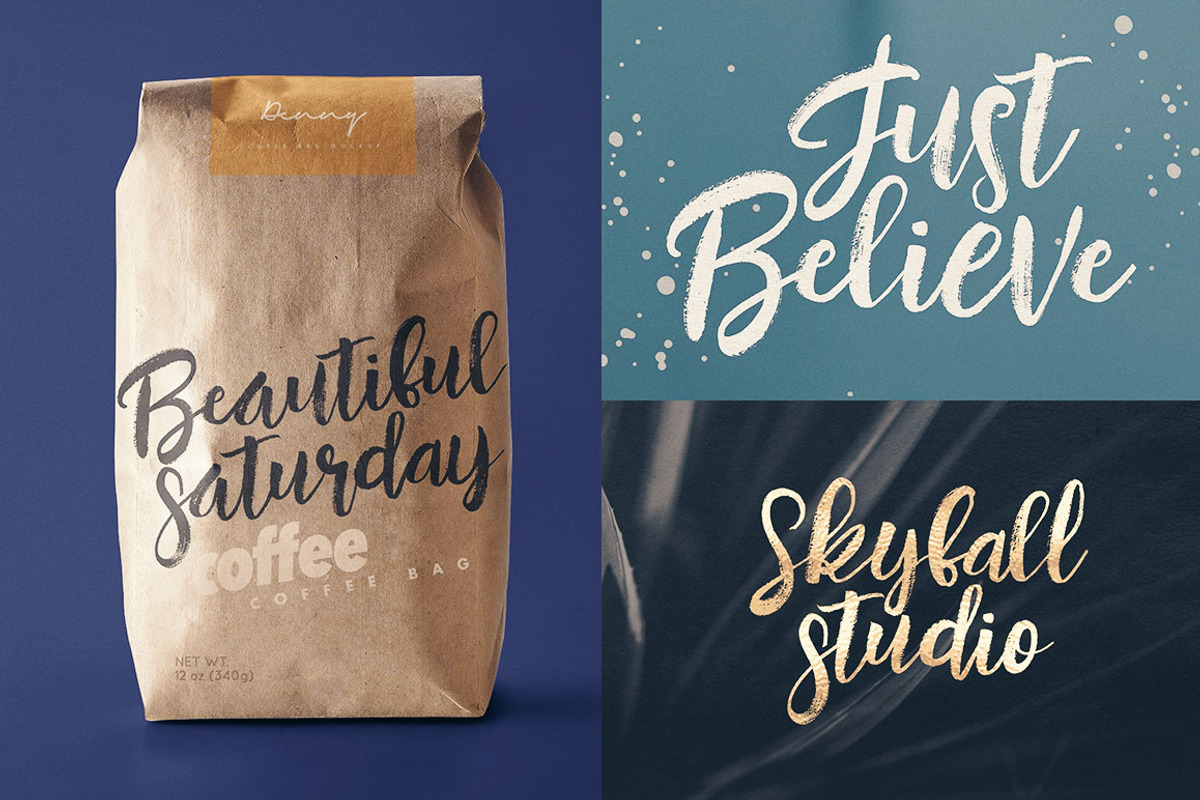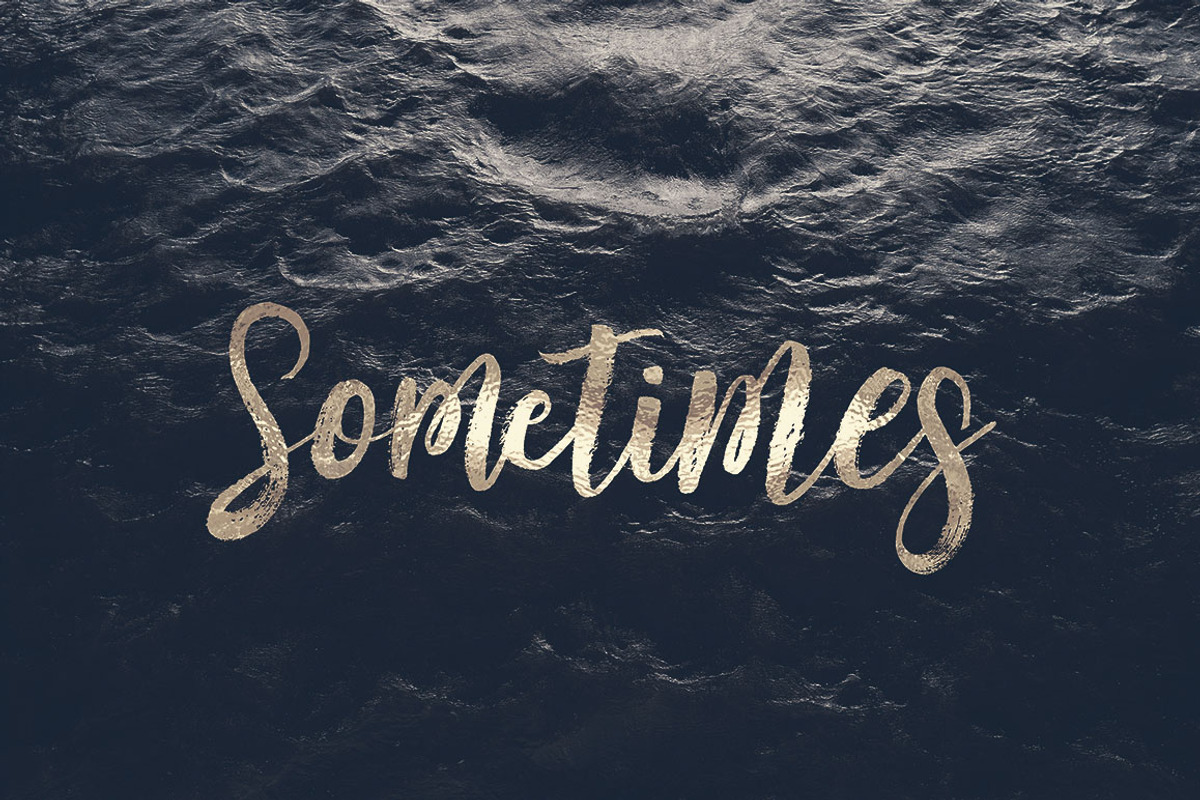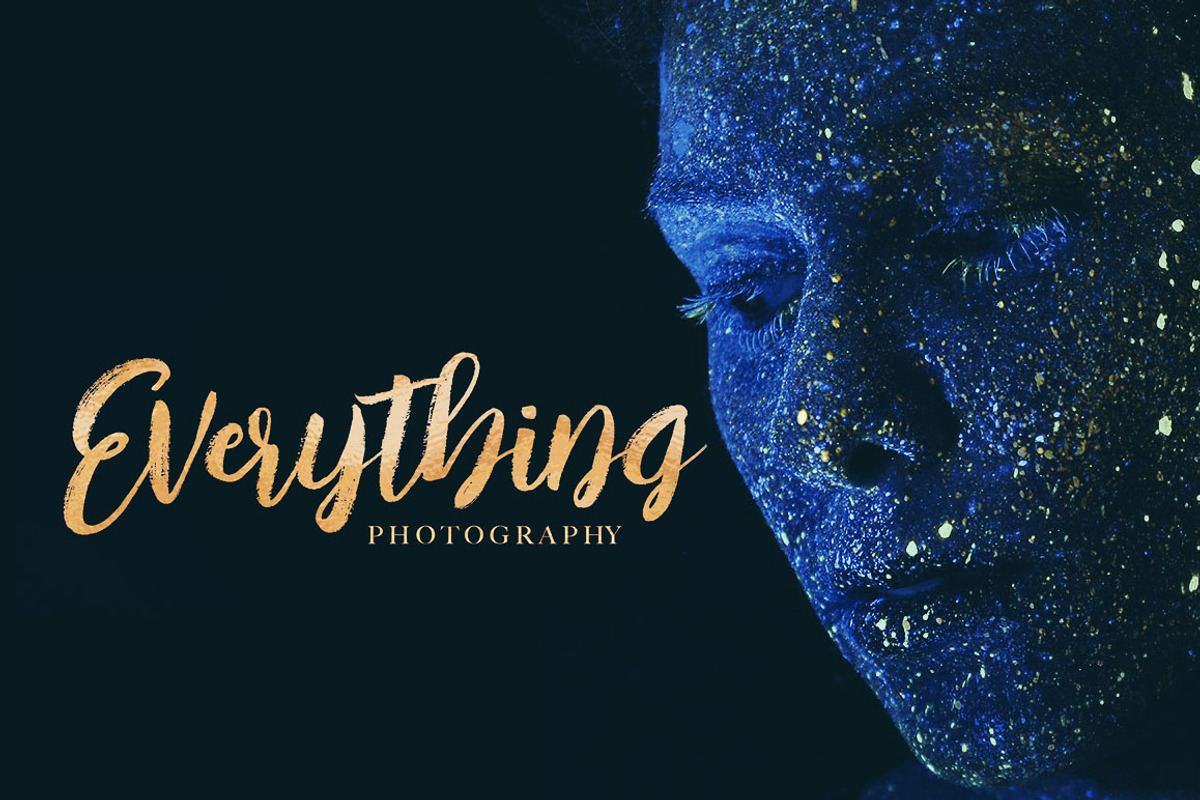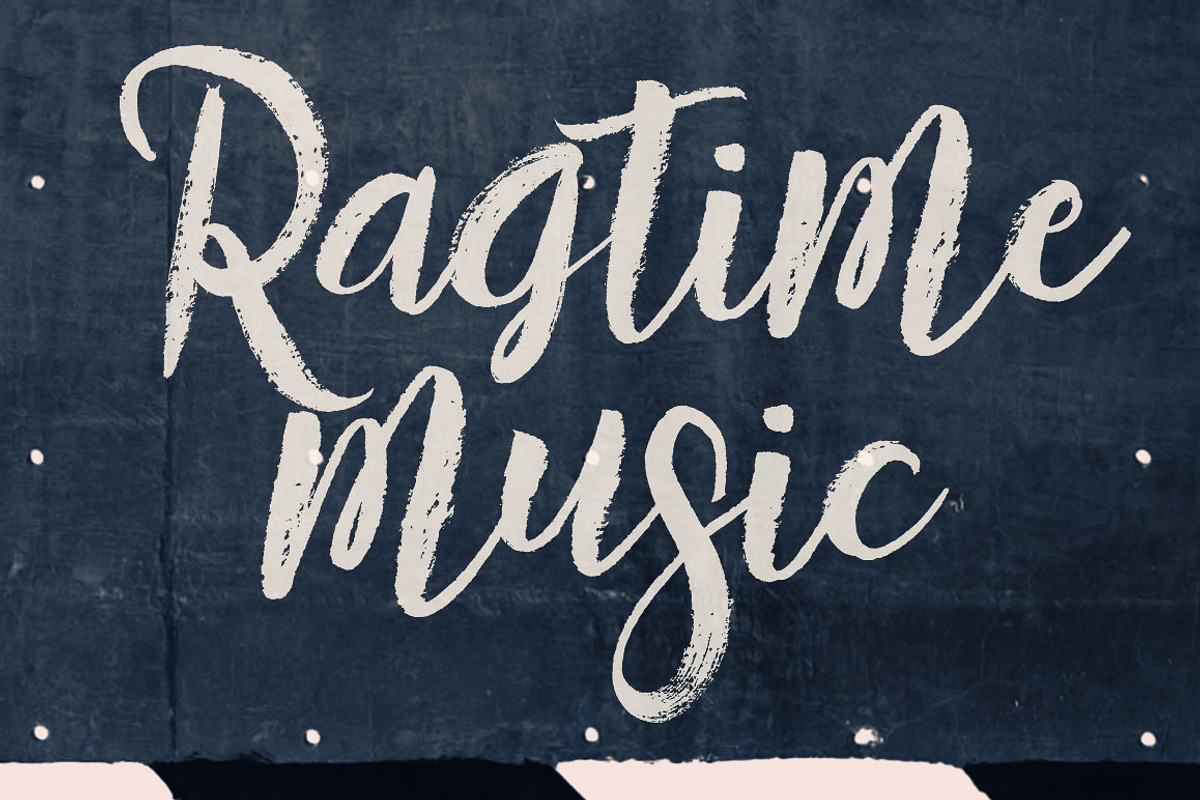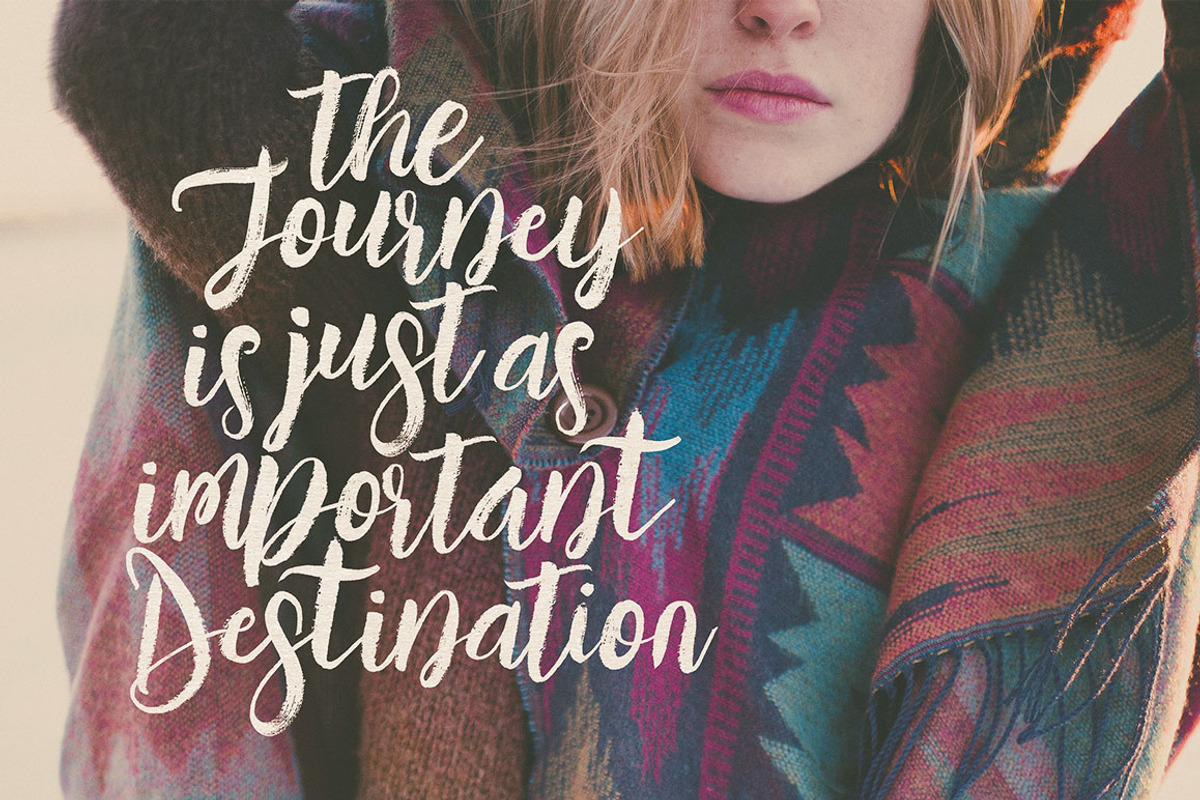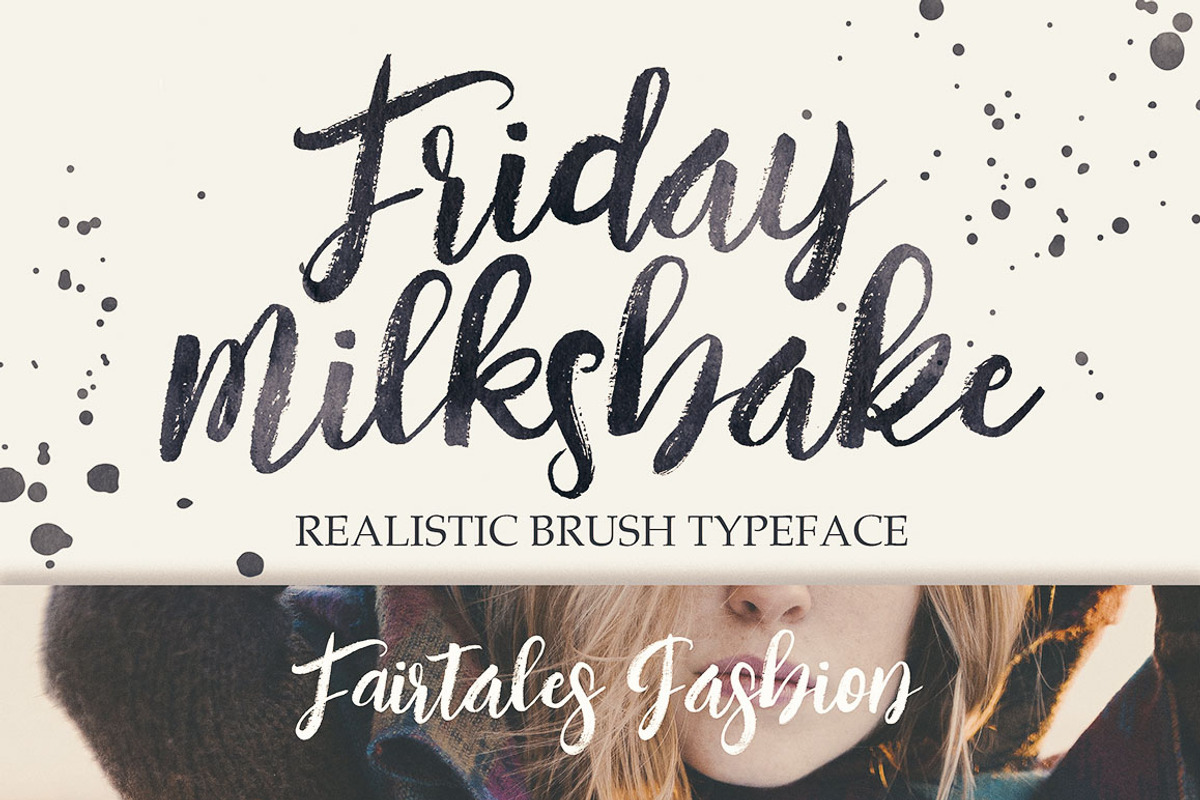
Taksim Brush Font
Cool handwritten brush style font with 2 fonts alternatives for your new projects. Great for grunge or artistic projects!
Why Taksim Brush Font is worth a look
Taksim Brush Font by Cruzine fits naturally into Branding, posters, packaging, typography.